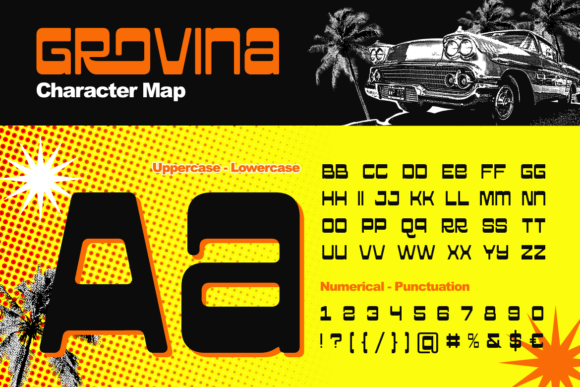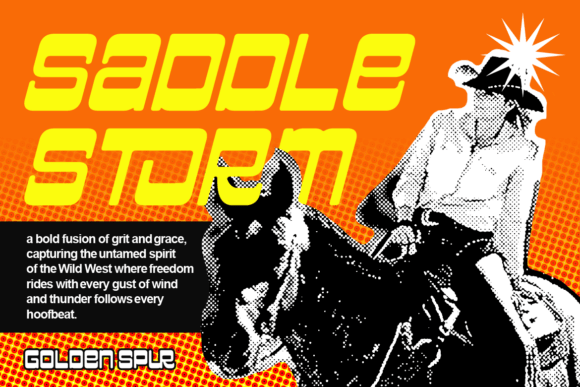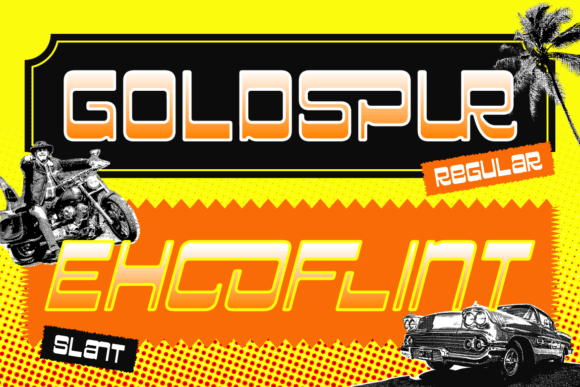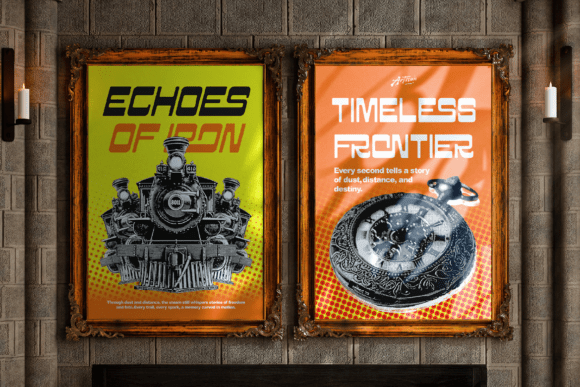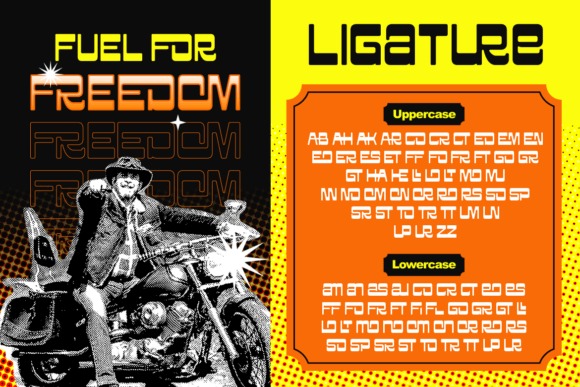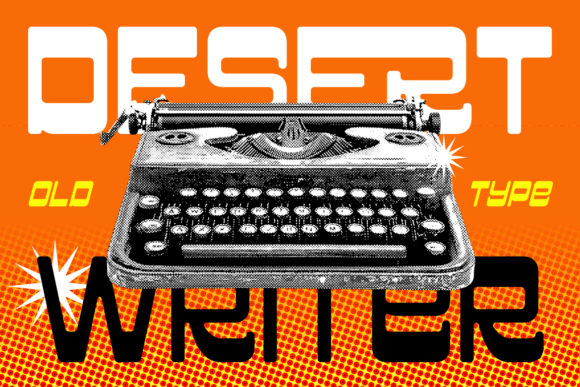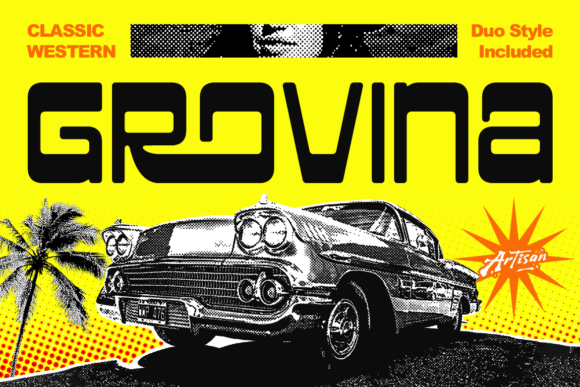
Grovina Font: Unleash the Power of Retro Style in Your Designs
Are you tired of using the same old fonts in your designs? Look no further than Grovina, a bold retro typeface that’s built for speed and style. Inspired by vintage car emblems, biker jackets, and old western movie posters, Grovina brings a gritty-but-cool attitude to your design projects. With its unique blend of classic and modern elements, this font is perfect for designers and crafters who want to add a little horsepower and rebel energy to their work.
The Inspiration Behind Grovina
Grovina’s design is rooted in the nostalgia of retro culture. The font’s creator drew inspiration from the iconic emblems of vintage cars, the rebellious spirit of biker jackets, and the bold typography of old western movie posters. The result is a font that’s both a tribute to the past and a bold statement for the present. Grovina’s unique character is perfect for designs that require a strong, attention-grabbing presence.
Key Features of Grovina Font
Grovina is more than just a font – it’s a design experience. Here are some of its key features:
• Two Styles: Grovina comes in two styles – Regular and Slant. The Regular style offers a classic, bold look, while the Slant style adds a touch of attitude and sophistication.
• Bold and Versatile: Grovina is a bold font that’s perfect for a wide range of design applications, from logo designs and posters to vintage labels and more.
• Retro-Chic: Grovina’s retro-inspired design makes it perfect for projects that require a nostalgic touch, such as packaging, branding, and advertising.
Grovina is a font that’s designed to inspire creativity and fuel imagination. Whether you’re a designer, crafter, or DIY enthusiast, Grovina is the perfect choice for projects that require a bold, eye-catching look. Here are some ideas for using Grovina in your designs:
• Logo Designs: Use Grovina to create bold, memorable logos that make a statement.
• Posters and Flyers: Add a touch of retro style to your posters and flyers with Grovina’s bold, attention-grabbing typography.
• Vintage Labels: Create authentic-looking vintage labels with Grovina’s distressed, retro-inspired design.
• Branding and Packaging: Use Grovina to add a touch of personality and style to your branding and packaging designs.
Why Choose Grovina Font?
With so many fonts to choose from, why choose Grovina? Here are just a few reasons:
• Unique Style: Grovina’s retro-inspired design makes it stand out from the crowd.
• Versatility: Grovina is a versatile font that can be used in a wide range of design applications.
• Easy to Read: Despite its bold style, Grovina is easy to read, even at small sizes.
Get Ready to Rev Up Your Designs
In conclusion, Grovina is a bold retro typeface that’s built for speed and style. With its unique blend of classic and modern elements, this font is perfect for designers and crafters who want to add a little personality and attitude to their work. Whether you’re creating logo designs, posters, vintage labels, or anything in between, Grovina is the perfect choice. So why wait? Download Grovina today and experience the power of retro style in your designs!